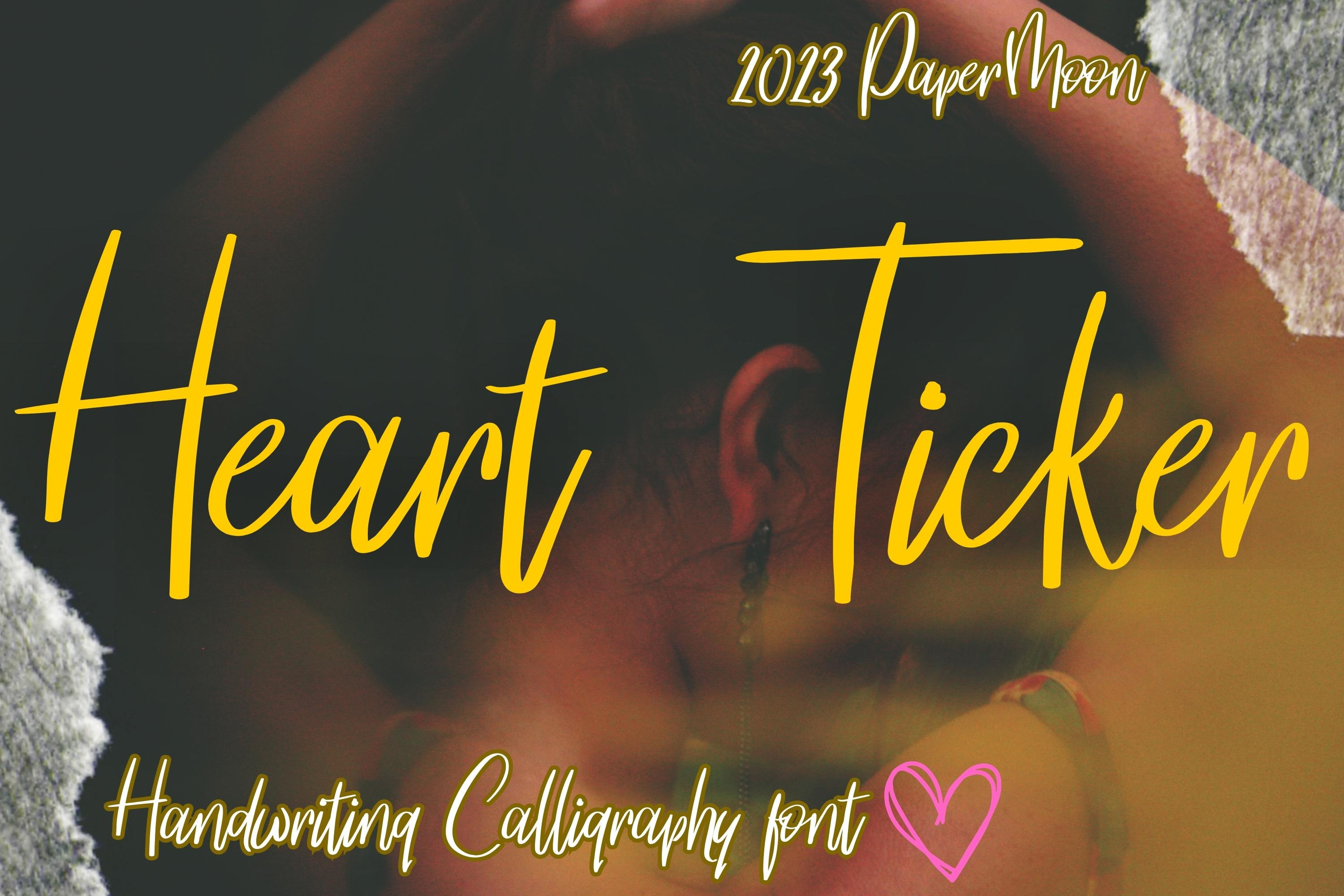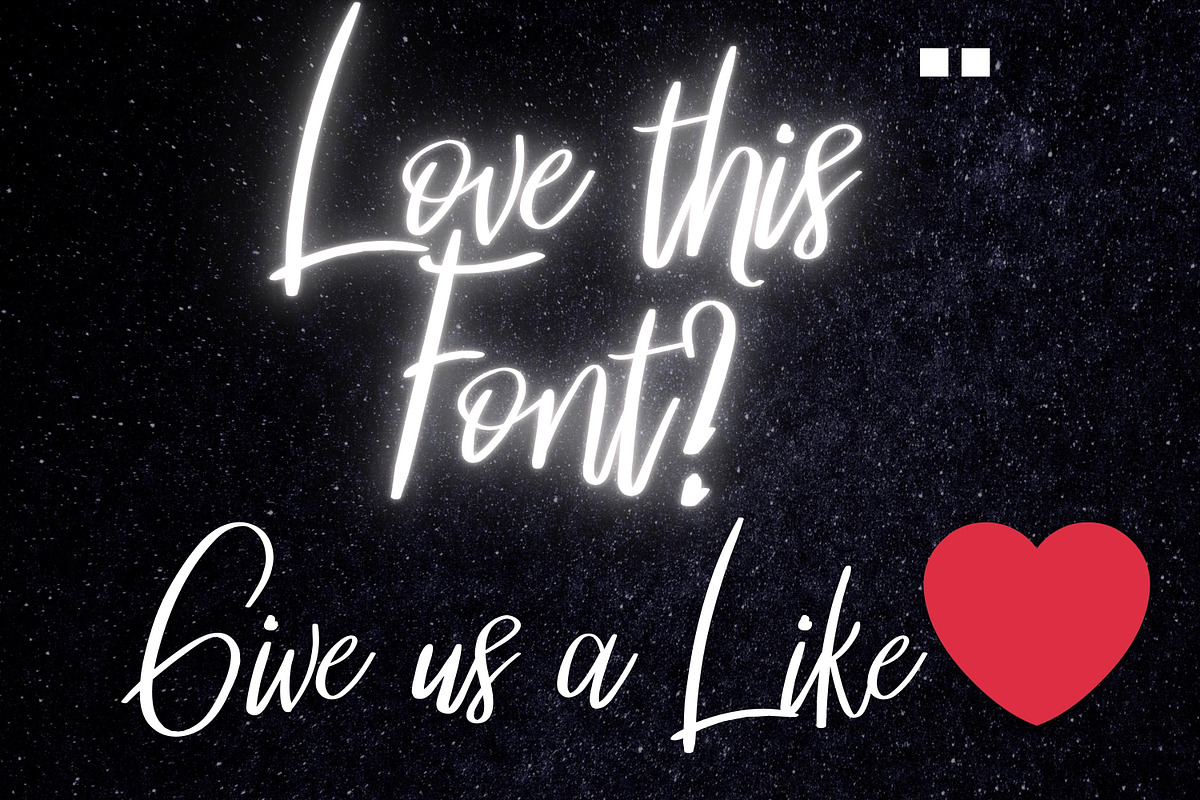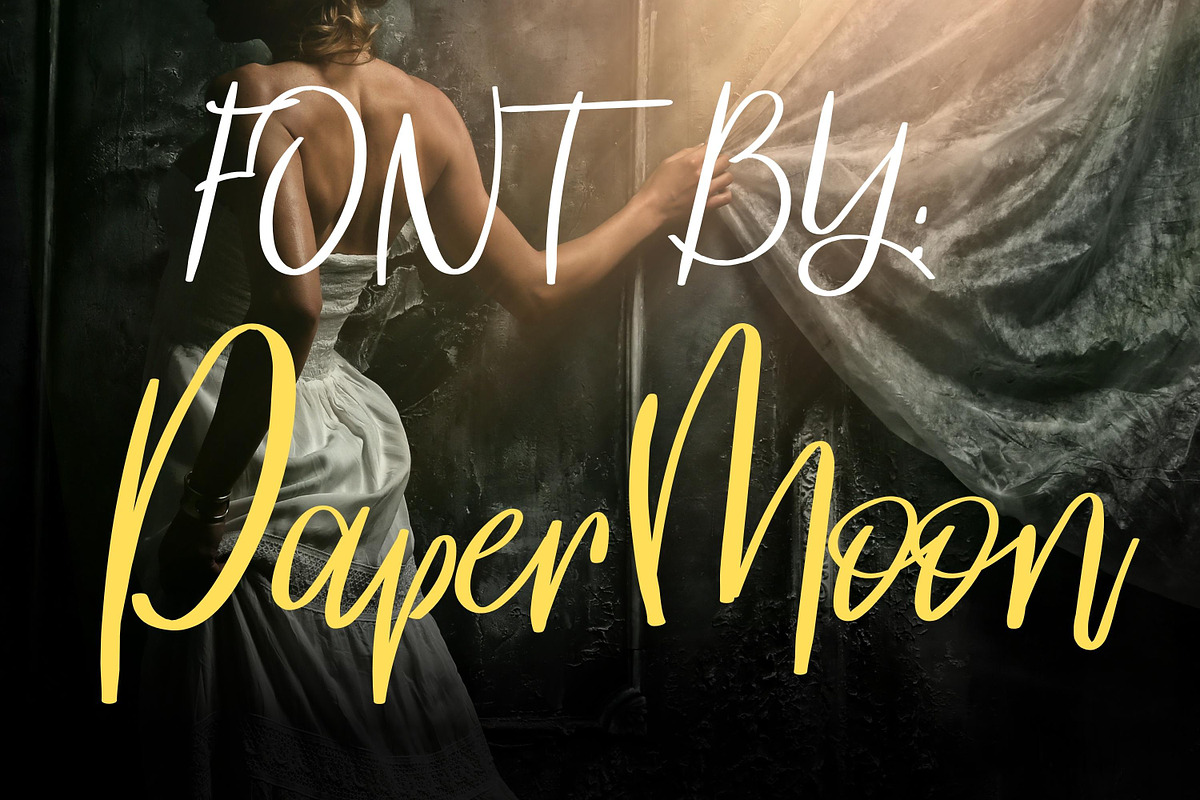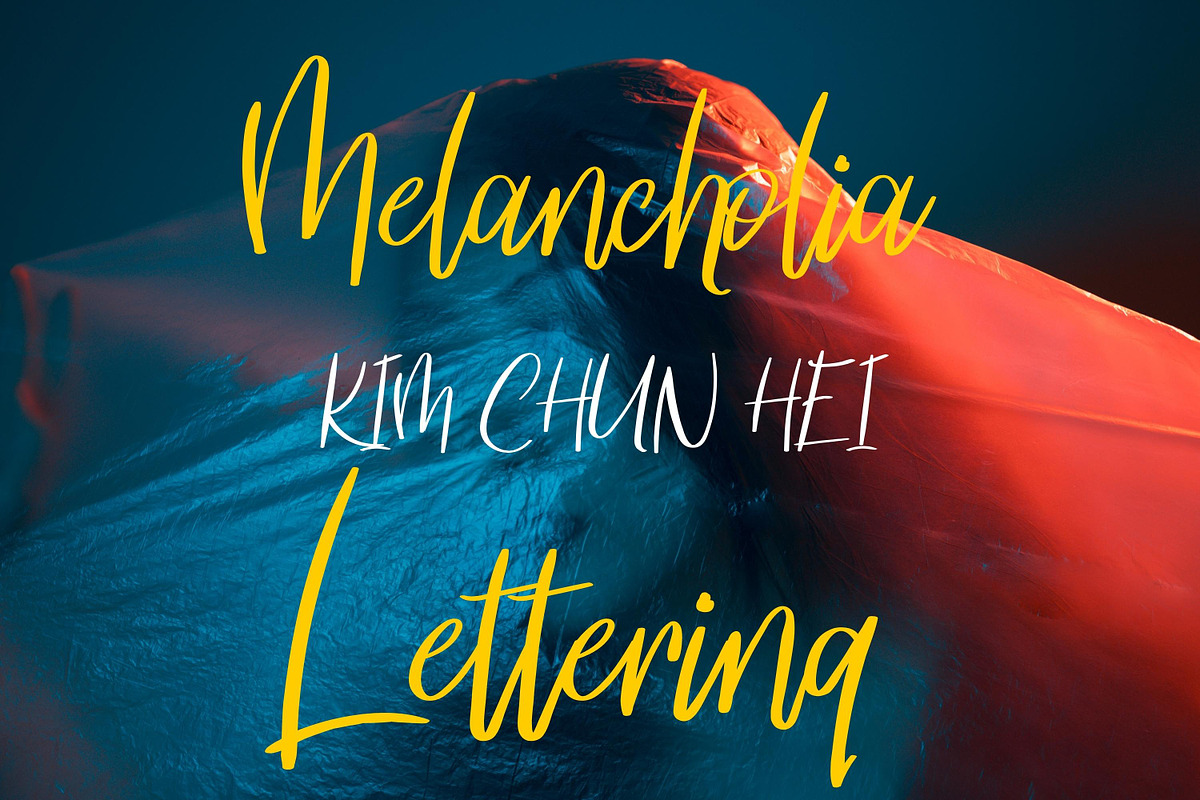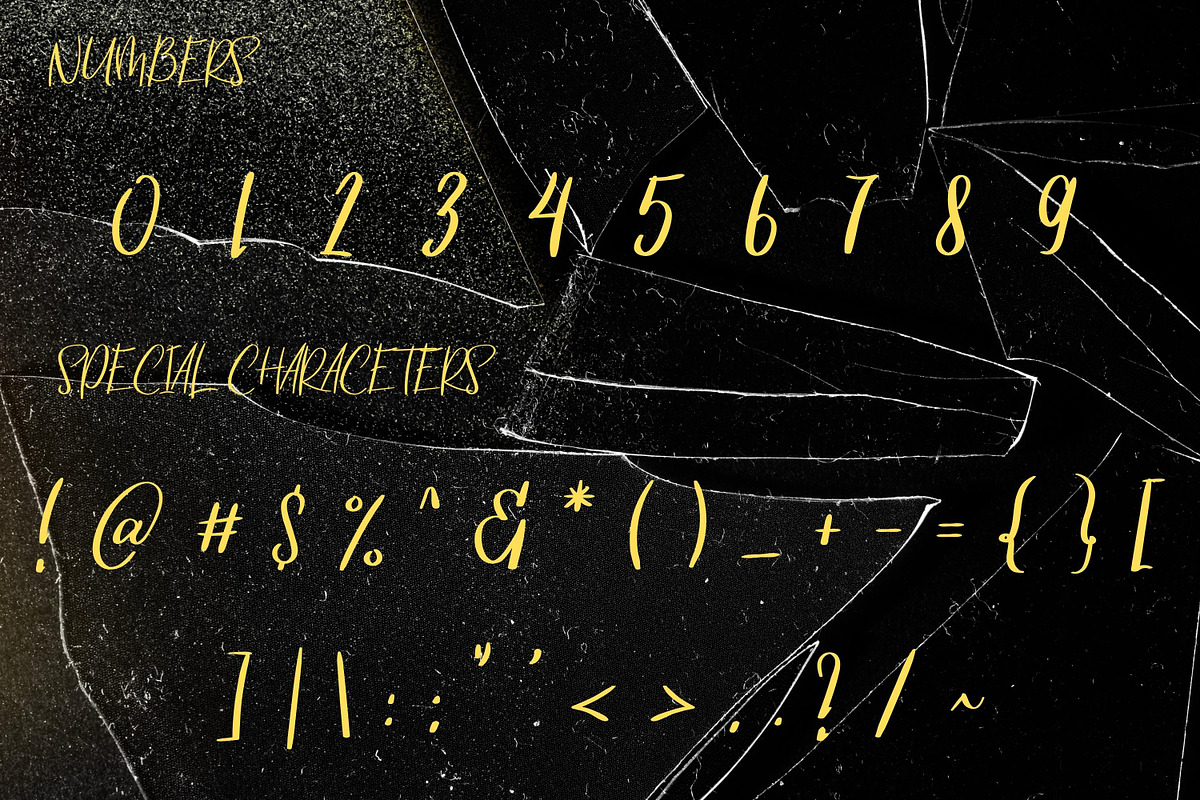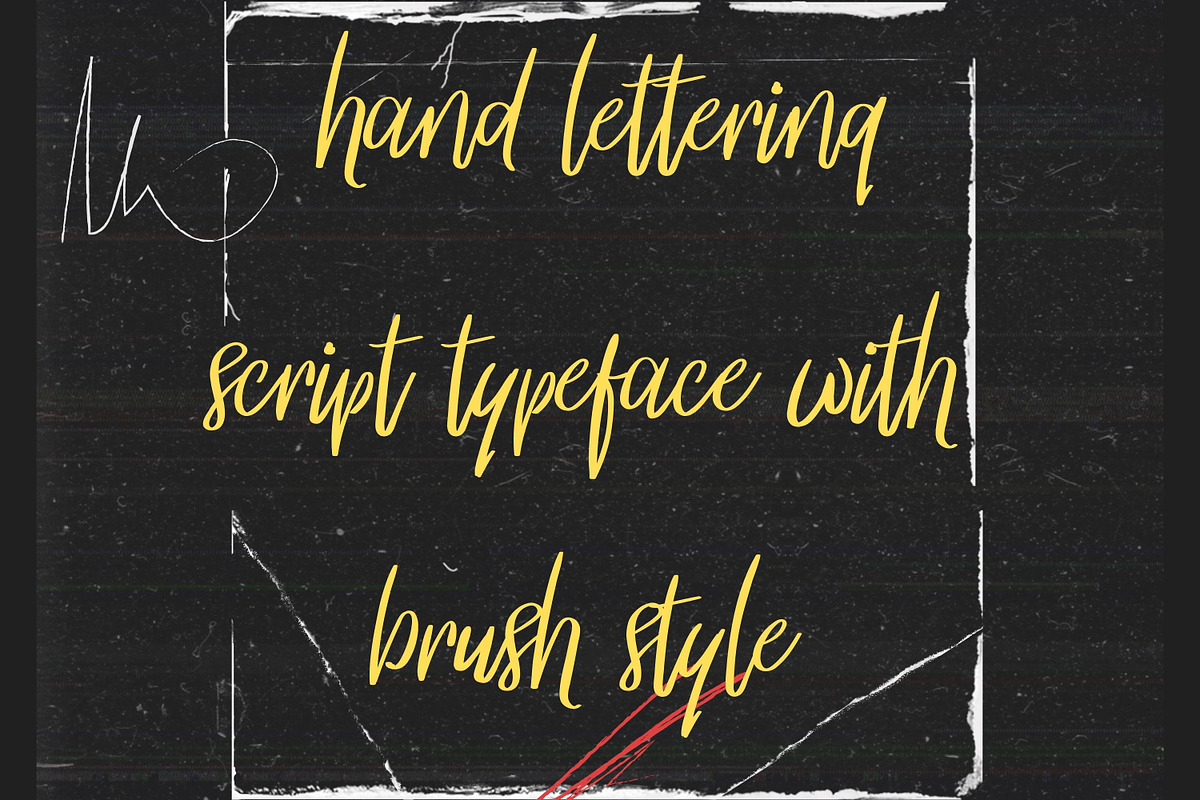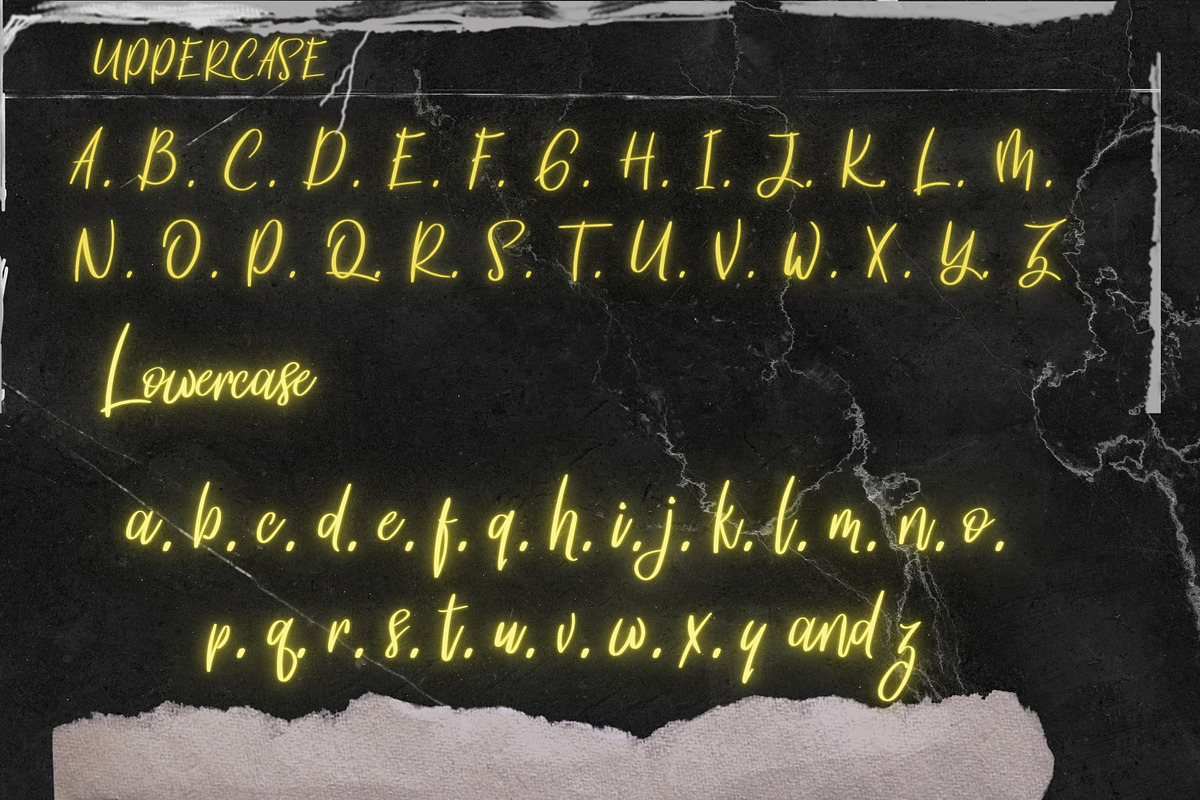
Heart Ticker Calligraphy Font
Let's embrace a cozy stay-at-home vibe. We're excited to introduce Heart Ticker Font.
Heart Ticker is a splendid calligraphy font meticulously crafted. This stunning typeface boasts a unique hand-lettered script style with a charming brush effect. It features an impeccably designed character set, complete with well-managed spacing and kerning. This font effortlessly combines elements of elegance, vintage charm, style, sophistication, and classic brush calligraphy, making it a versatile choice for a wide range of design projects, including branding, logos, stationery, business cards, signage, flyers, brochures, and more. It's the perfect fit for industries spanning from weddings, events, real estate, architecture, law firms, floristry, gardening, makeup artistry, travel, hotels, and music.